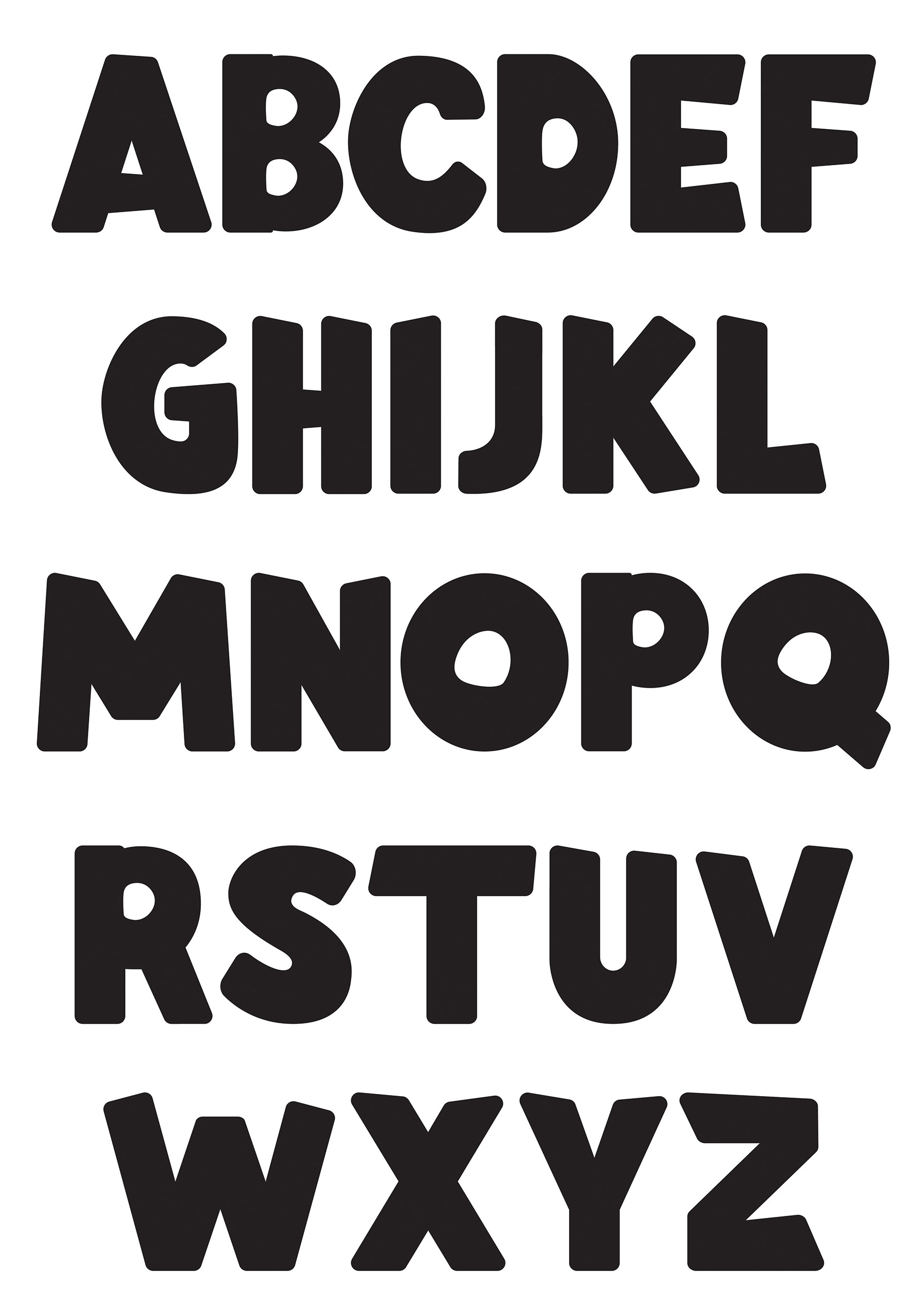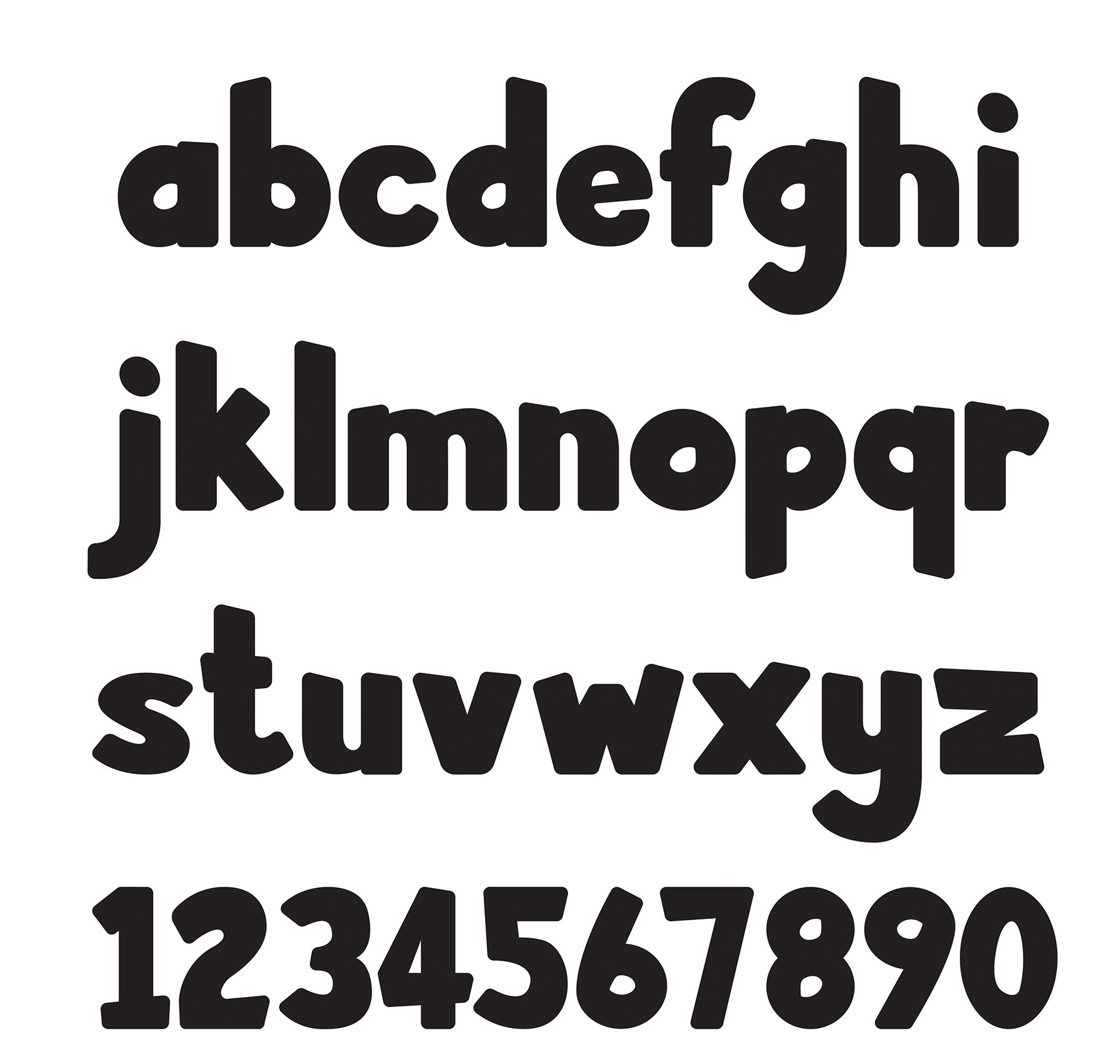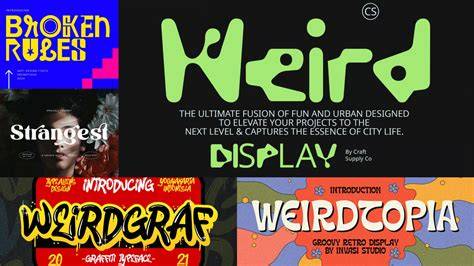
What Are Odd Fonts?
Odd fonts are typefaces that stand out from the more commonly used fonts. They are unique and can add a special touch to any design. The term ‘odd fonts’ is a broad one, with many different interpretations. Some may consider any typeface that is not sans serif or serif to be odd. Others may think of it as a font that is pixelated, experimental or crude. Whatever your definition, odd fonts can be a great way to grab attention and make a statement.
Types of Odd Fonts
Odd fonts come in many shapes and sizes. Some of the more popular odd fonts include pixelated fonts, graffiti fonts, cartoon fonts, script fonts and brush fonts. Pixelated fonts are particularly popular right now, as they have a retro-inspired look that makes them stand out from the crowd. Graffiti fonts are also popular, featuring bold and expressive letterforms that can add a street-style edge to any design. Cartoon fonts are great for creating a fun and playful look, while script fonts can add a touch of sophistication. Finally, brush fonts are a great way to create a natural and organic feel to any design.
How to Use Odd Fonts
Odd fonts can be used for many different purposes. They’re great for creating a unique look for logos, headlines and titles. They can also be used to add an extra layer of personality to any design. When using odd fonts, it’s important to remember to keep it simple. Odd fonts should be used sparingly, as too many can overwhelm the design and make it difficult to read. It’s also important to choose a font that is easy to read, as well as one that fits the overall design.
Odd fonts are a great way to add a unique touch to any design. From pixelated fonts to graffiti fonts, there are many different types of odd fonts to choose from. When using odd fonts, it’s important to keep it simple and choose a font that is easy to read and fits the overall design. With the right font, you can create a look that stands out from the crowd.